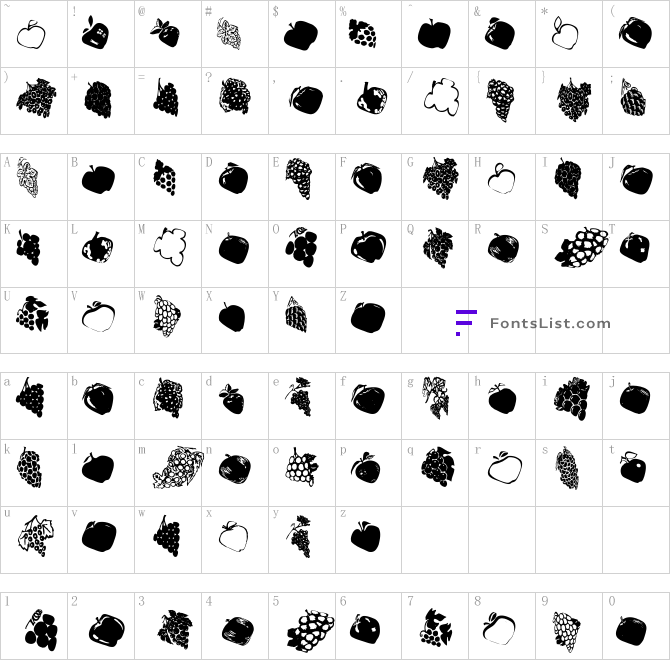
- Font Name:AppleWineTwo
AppleWineTwoMedium.ttf is a very beautiful artistic font, AppleWineTwoMedium.ttf is widely used in the design and printing of various books and pictures,AppleWineTwoMedium.ttf has a strong visual impact,AppleWineTwoMedium.ttf is a commonly used font in newspapers, magazines and books, and is used in posters, e-commerce Poster design, store design, logo design, font design and other fields.AppleWineTwoMedium.